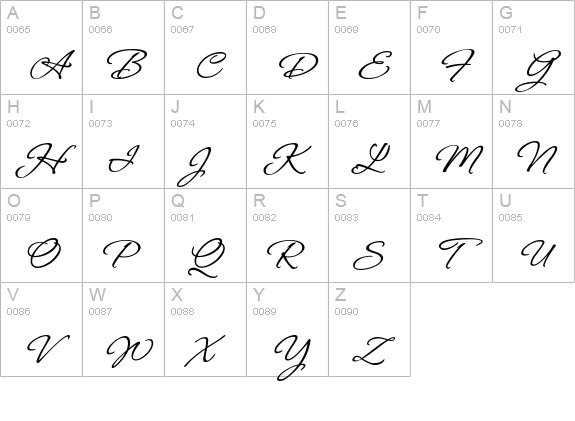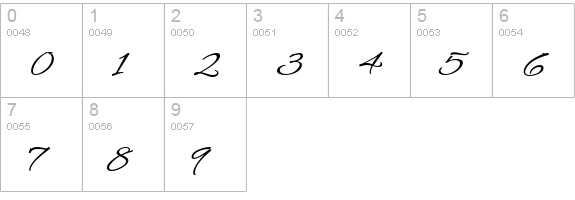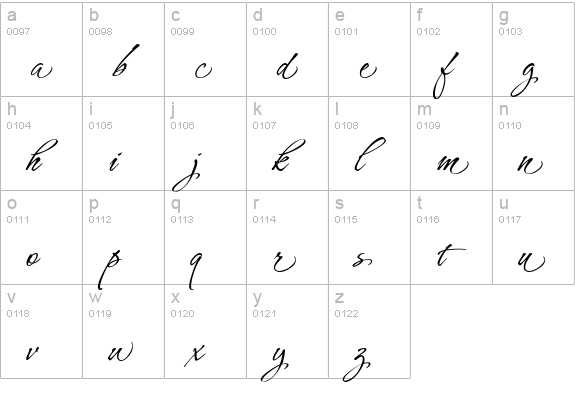
Hurricane Swash font is a bold and dynamic typeface that exudes a sense of power and energy, perfect for making a statement in your designs. With its striking swashes and intricate details, this font is sure to captivate and engage your audience. Whether you're working on a poster, logo, or branding project, Hurricane Swash font will add a touch of sophistication and flair. The best part? Hurricane Swash font is completely free to download at FontsMarket.com. So go ahead and elevate your designs with this stunning typeface without breaking the bank. Don't miss out on this opportunity to enhance your creative projects with Hurricane Swash font today!